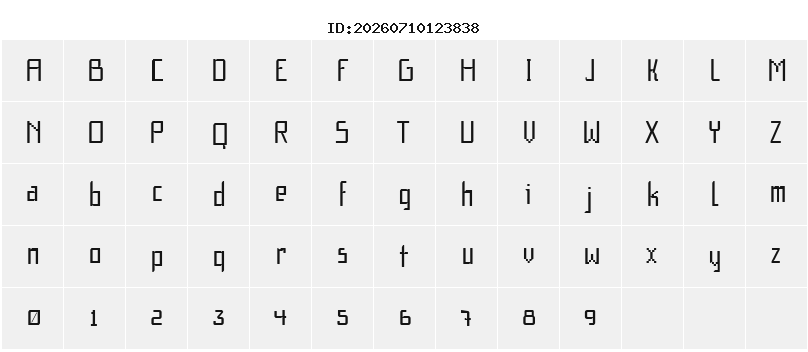
• Font Name: f1 Secuencia Quad ffp
• Designer: deFharo
• Description: Esta fuente est· basada, en sus proporciones, en la sucesiÛn de fibonacci, la secuencia de Lucas y el triangulo de Kepler. Soy deFharo diseÒador freelance en Spain. Descarga gratis la versiÛn completa de la fuente en: http://defharo.com/dise%c3%b1o-grafico/tipografia/f1-secuencia-a-fibonacci-font/
f1 Secuencia Quad ffp.ttf is a modern, elegant sans-serif font designed for ultimate readability and visual harmony. Perfect for branding, headlines, web design, and print materials.